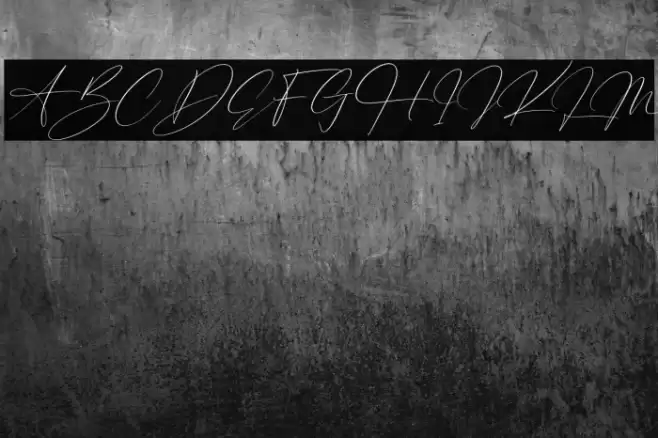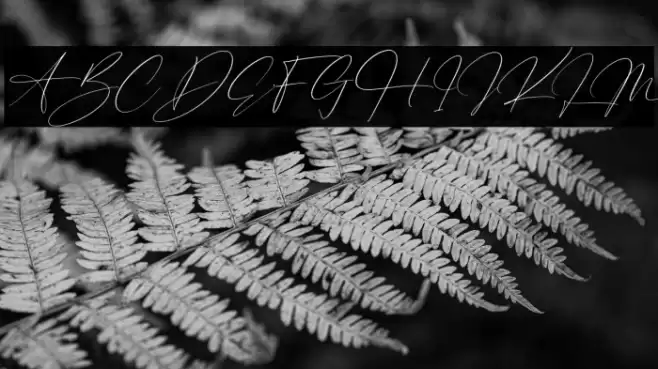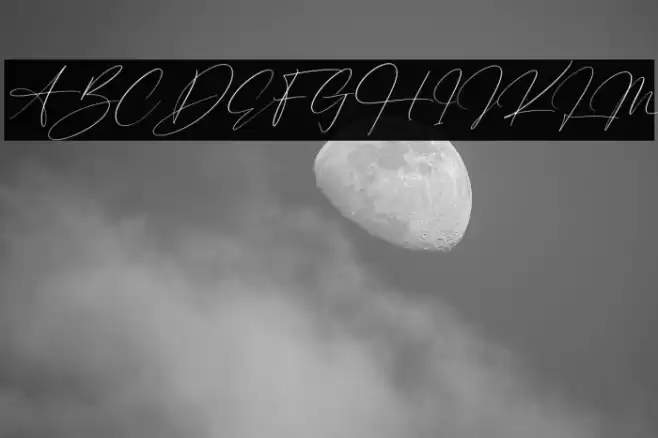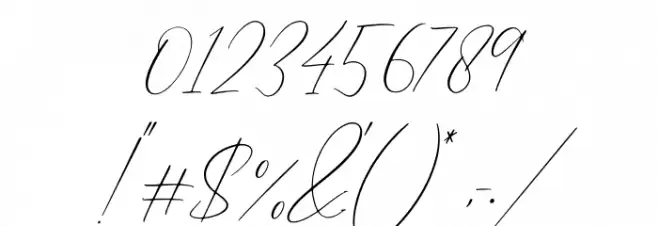
Hunterland Ontime Italic Font
Hunterland Ontime Italic Description
This elegant and flowing script font exudes a sense of sophistication and grace. The characters are delicately crafted with a fine, smooth stroke that gives it a handwritten appearance. The uppercase letters are tall and slightly slanted, while the lowercase letters maintain a consistent flow with beautiful loops and curves. The numerals and special characters are designed to match the overall aesthetic, providing a cohesive look. This font is perfect for projects that require a touch of elegance and personal flair.
A sophisticated and elegant script font with a handwritten style from Uncategorized fonts.
- Font: Hunterland Ontime Italic
- Proposed Projects: Ideal for wedding invitations, elegant branding, personal stationery, and artistic projects.
- Weight: Light
- Overall Style: Elegant, Handwritten
- Use Case: Logos, Invitations, Artistic projects
Hunterland Ontime Italic UPPERCASE
Hunterland Ontime Italic LOWERCASE
Hunterland Ontime Italic OTHER CHARS